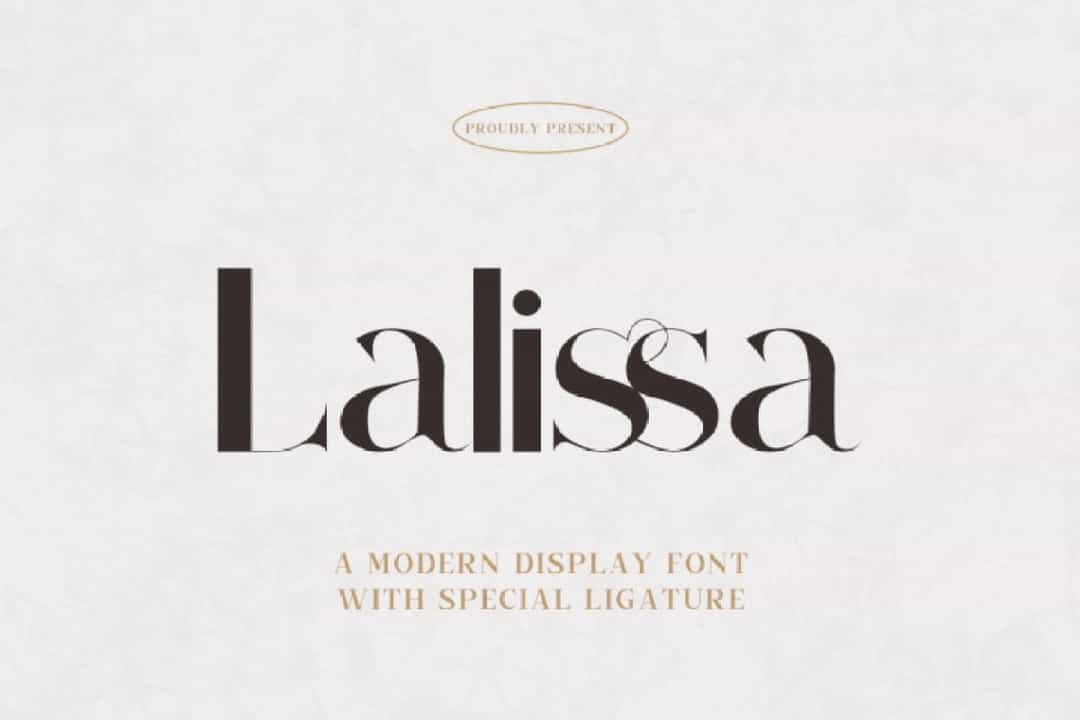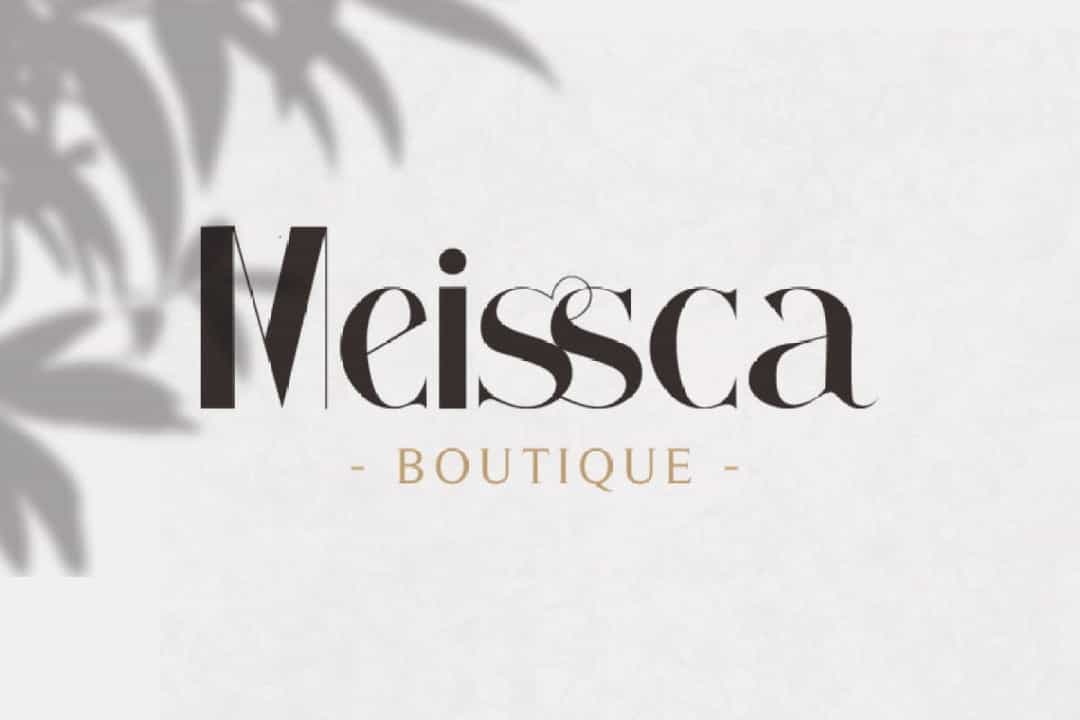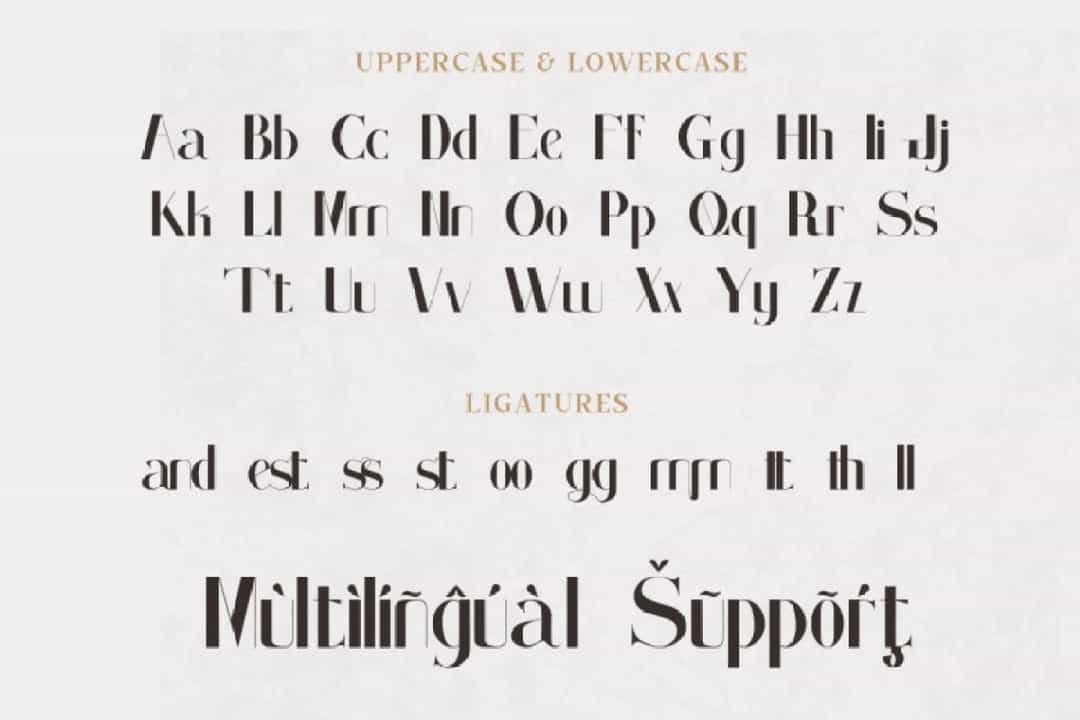
Lalissa is an adorable sans serif display font perfect for magazines, quotes, makeup products, crafts weddings boutiques boutique weddings and more! PUA encoded for easy character accessing! The font can also access all washes easily!